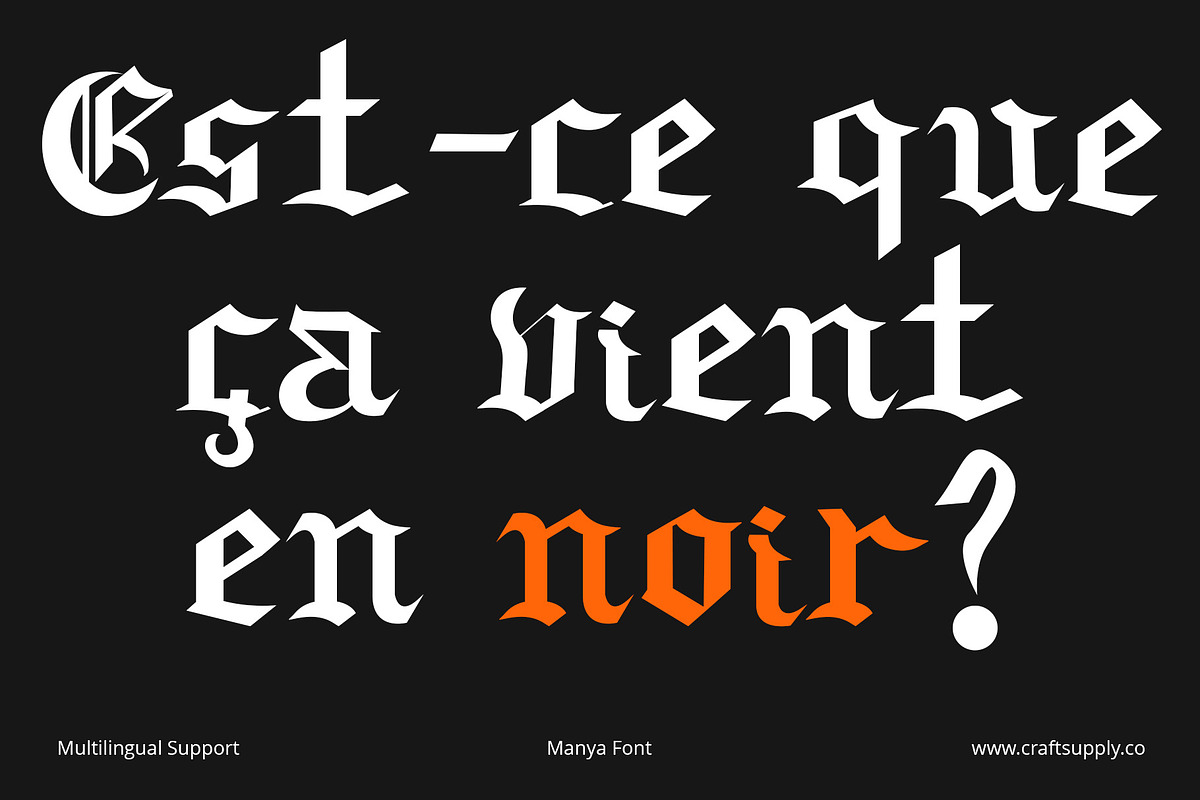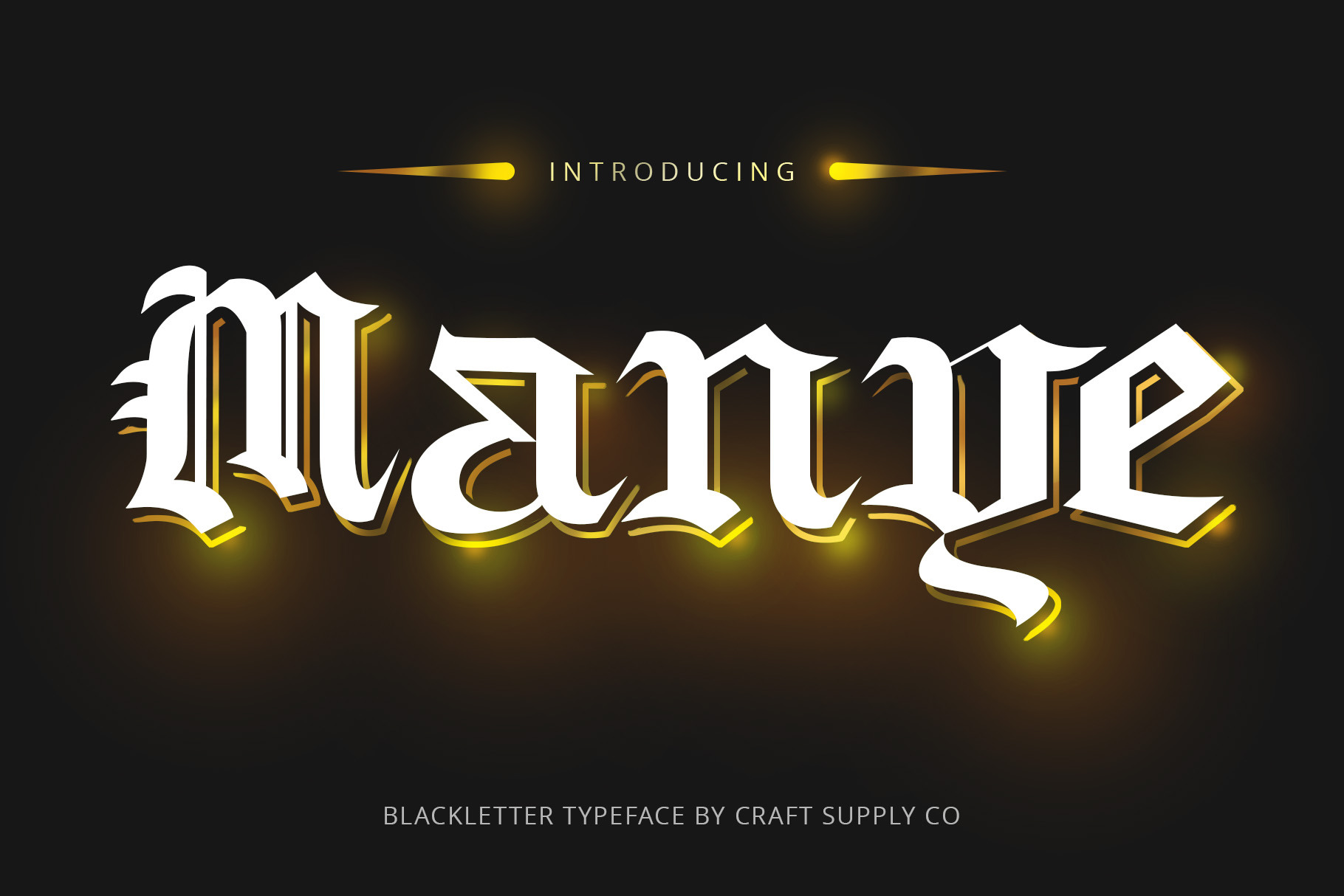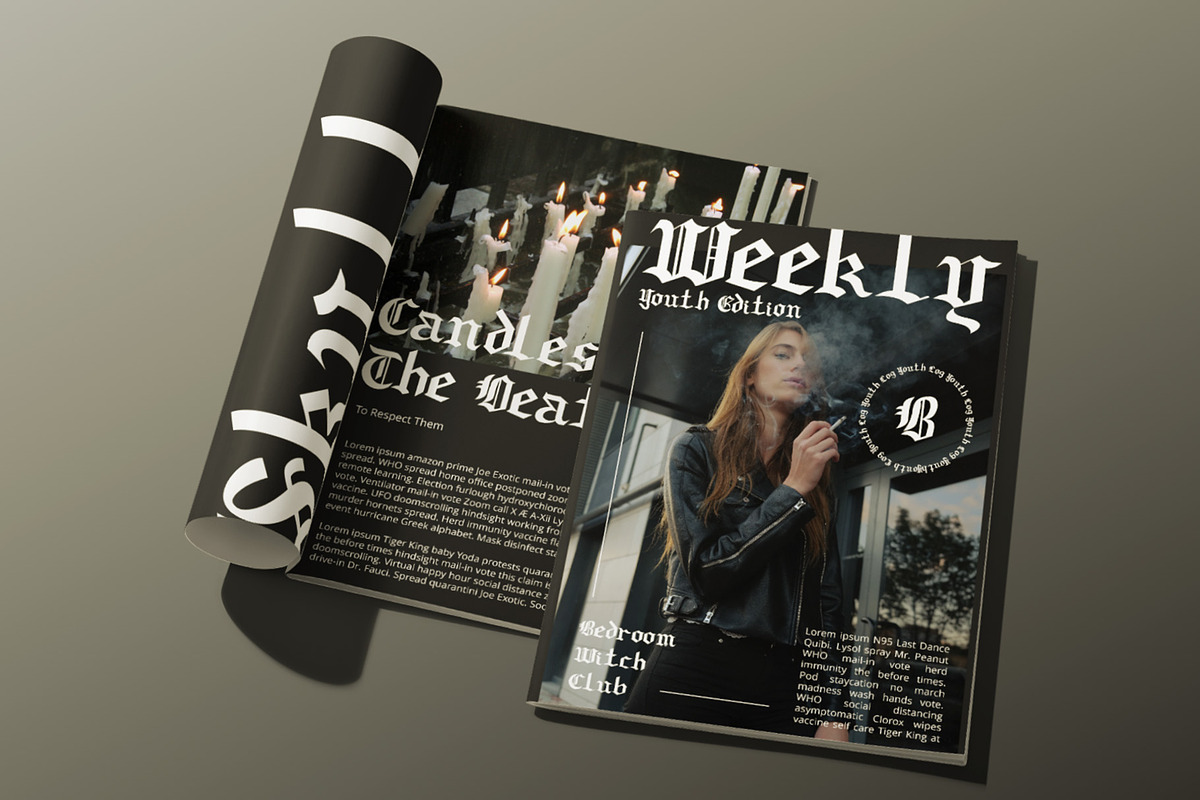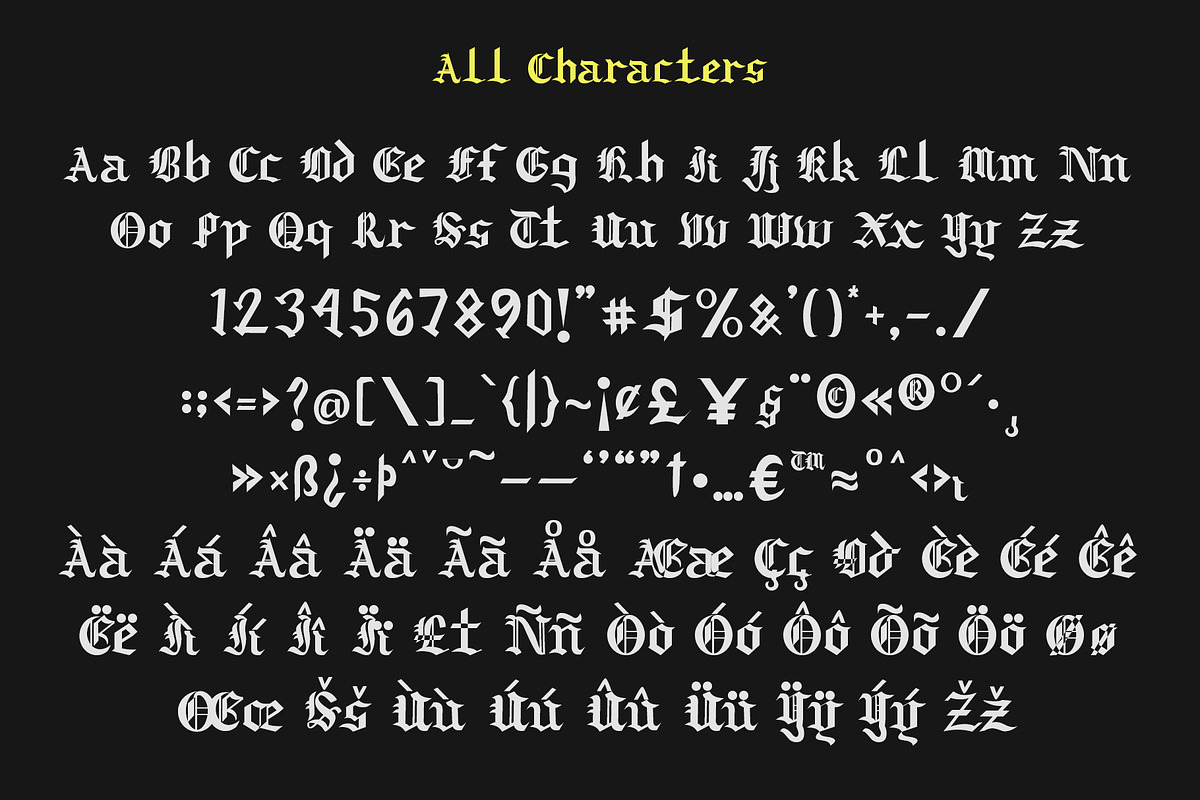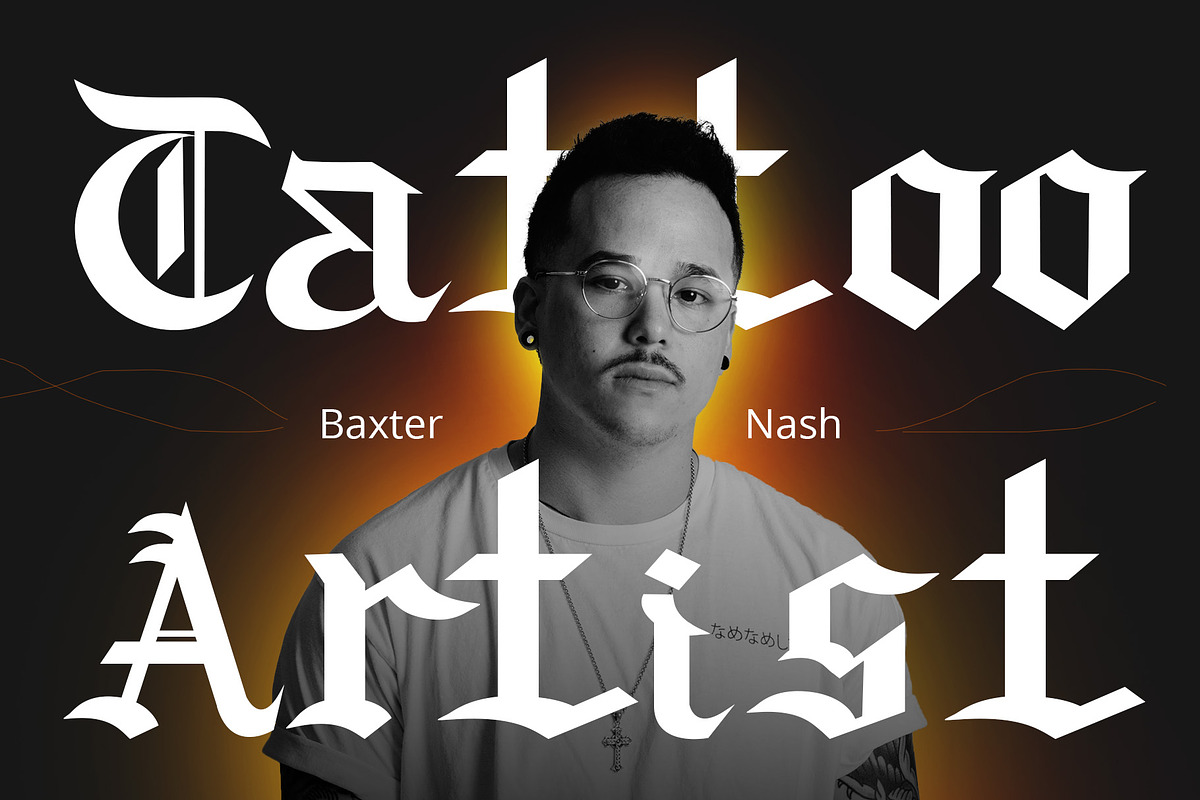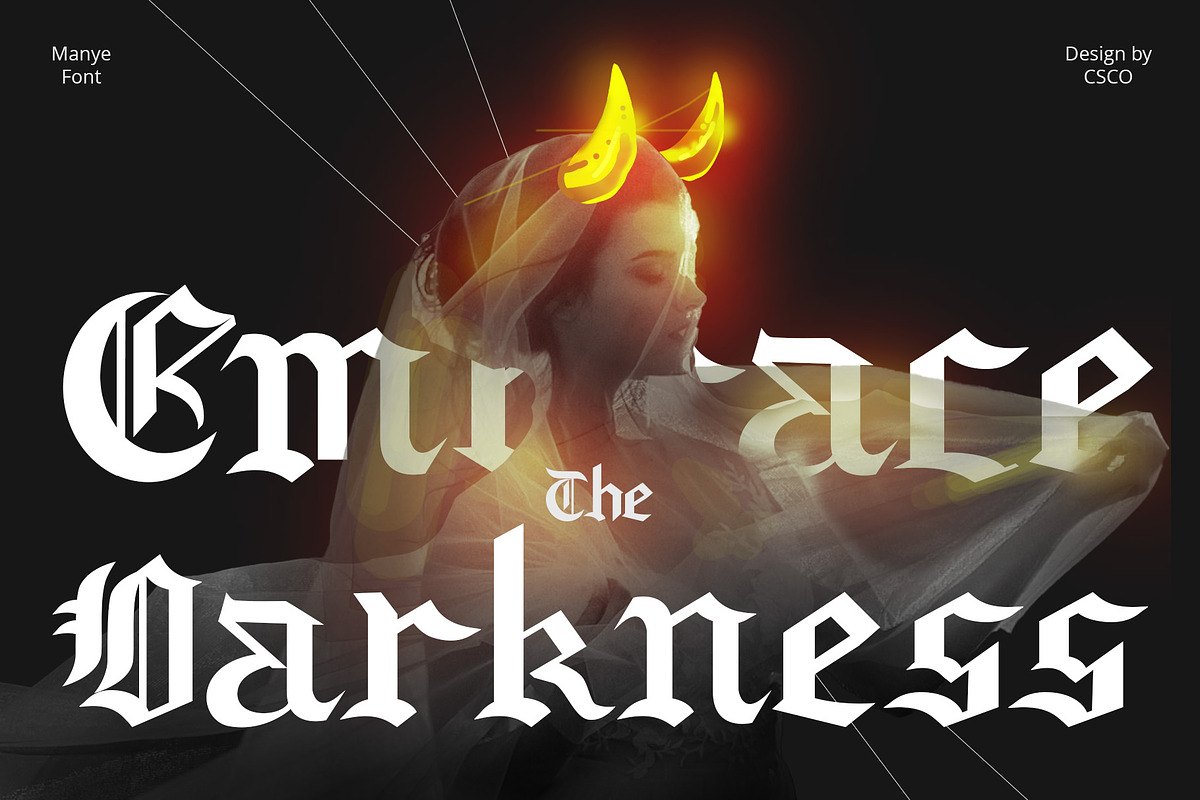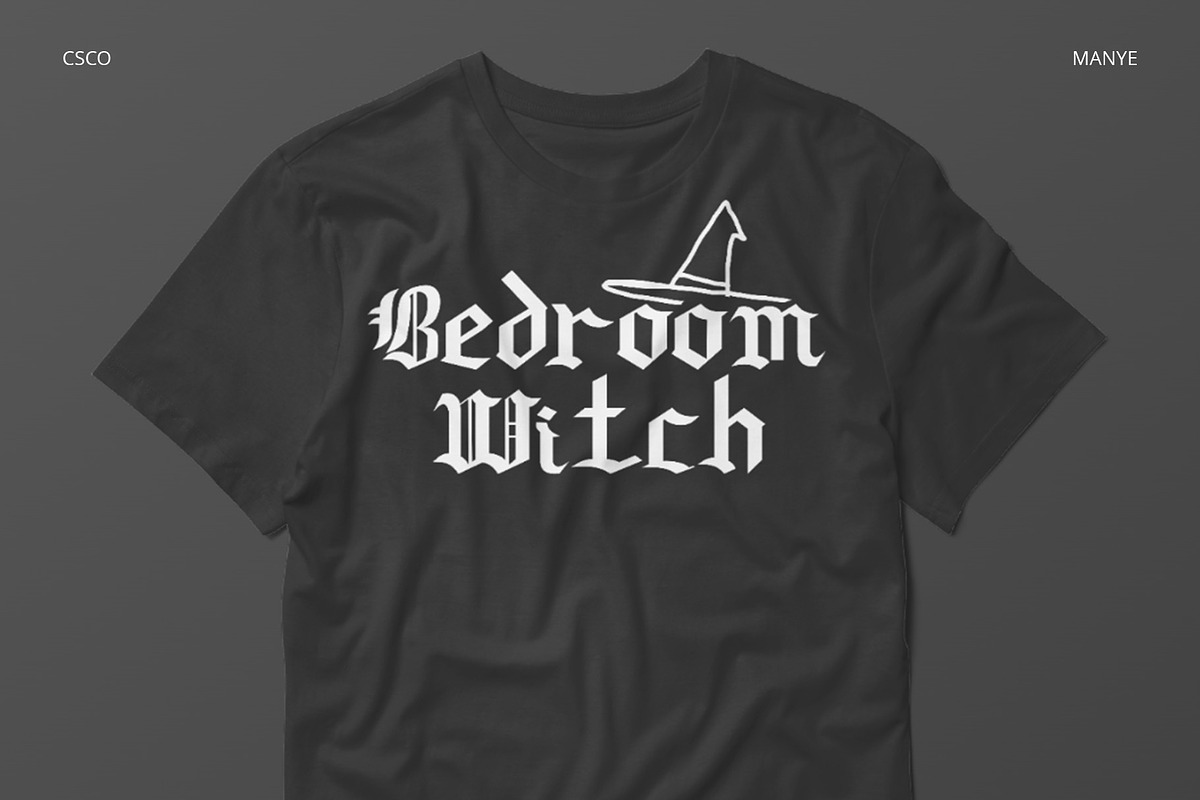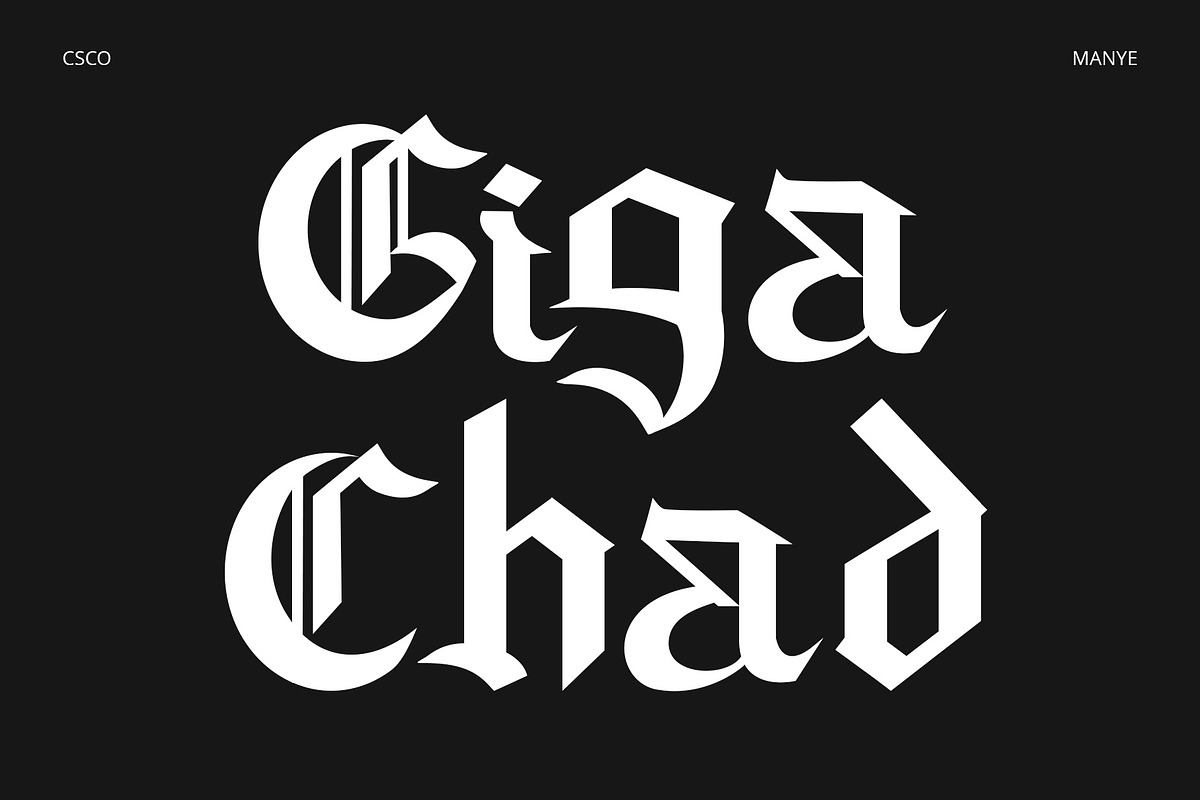
Manye – Blackletter Font
Introducing Manye – Blackletter Font
A Unique Display Typeface
Manye stands out as a captivating Blackletter Font, adding a touch of distinctiveness to your display and design requirements.
Distinctive Elegance
Manye’s design exudes a distinctive elegance, making it the perfect choice for attention-grabbing displays.
Versatile for Creative Projects
Beyond its elegant design, Manye’s versatility shines, allowing it to seamlessly complement a wide range of creative endeavors.
Captivating and Memorable
Manye ensures that your content is not only captivating but also memorable, leaving a lasting and distinctive impression.
In Conclusion
To sum it up, Manye – Blackletter Font is the ideal choice for display and unique design needs in the world of typography. Its distinctive elegance and versatility make it a great fit for a variety of creative projects. Manye captivates your audience, leaving them with a memorable and distinctive experience, ensuring accessibility to a broad readership.
- Manye Regular
- Manye Italic